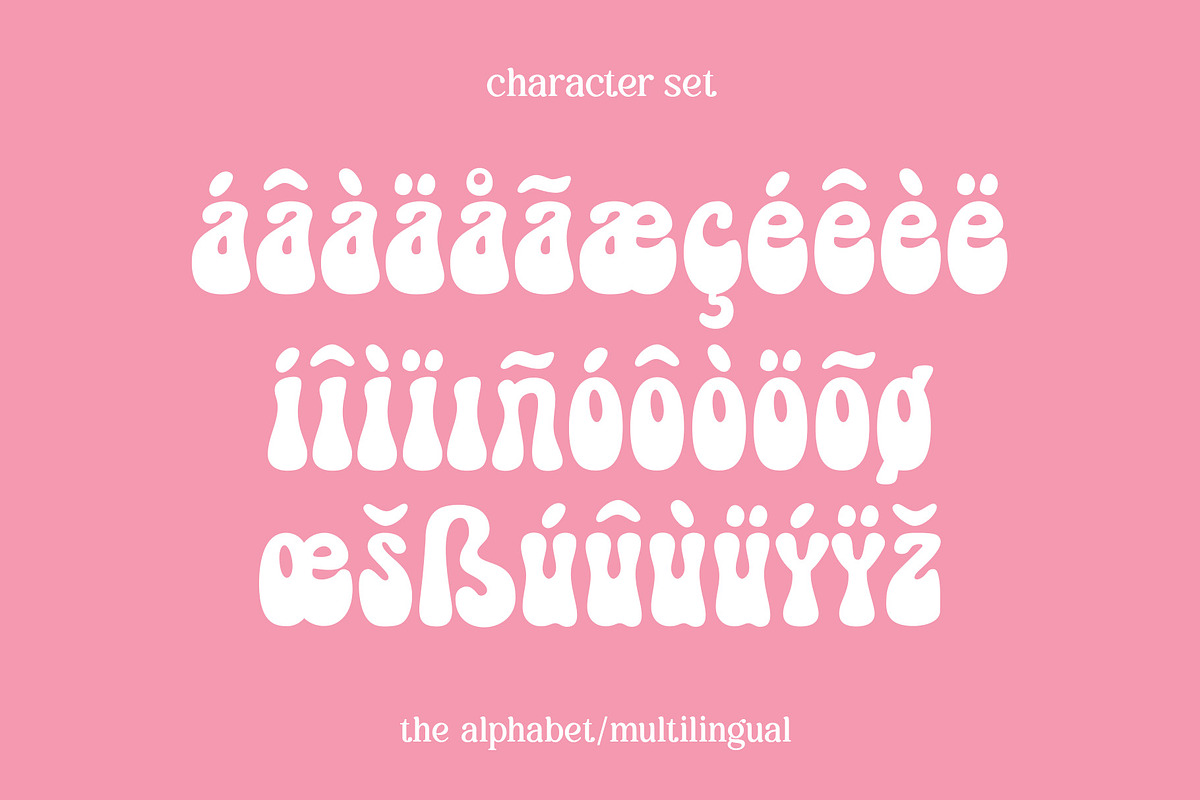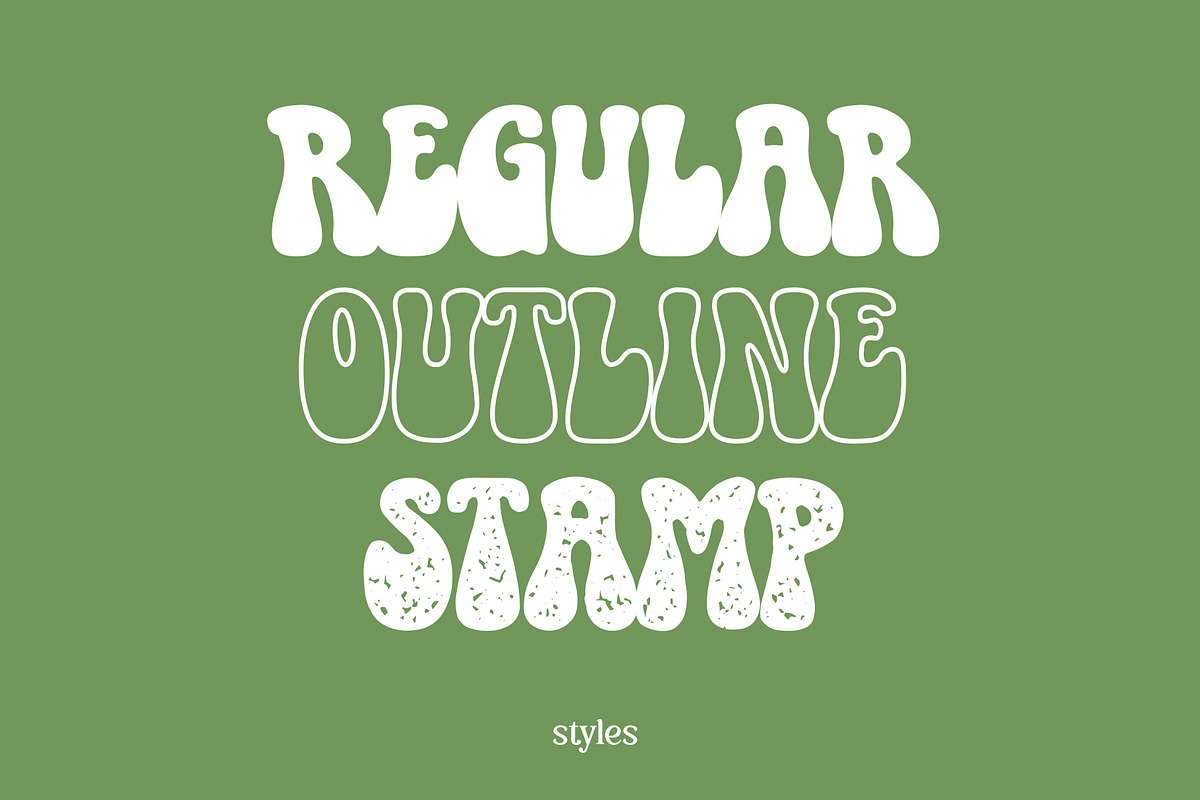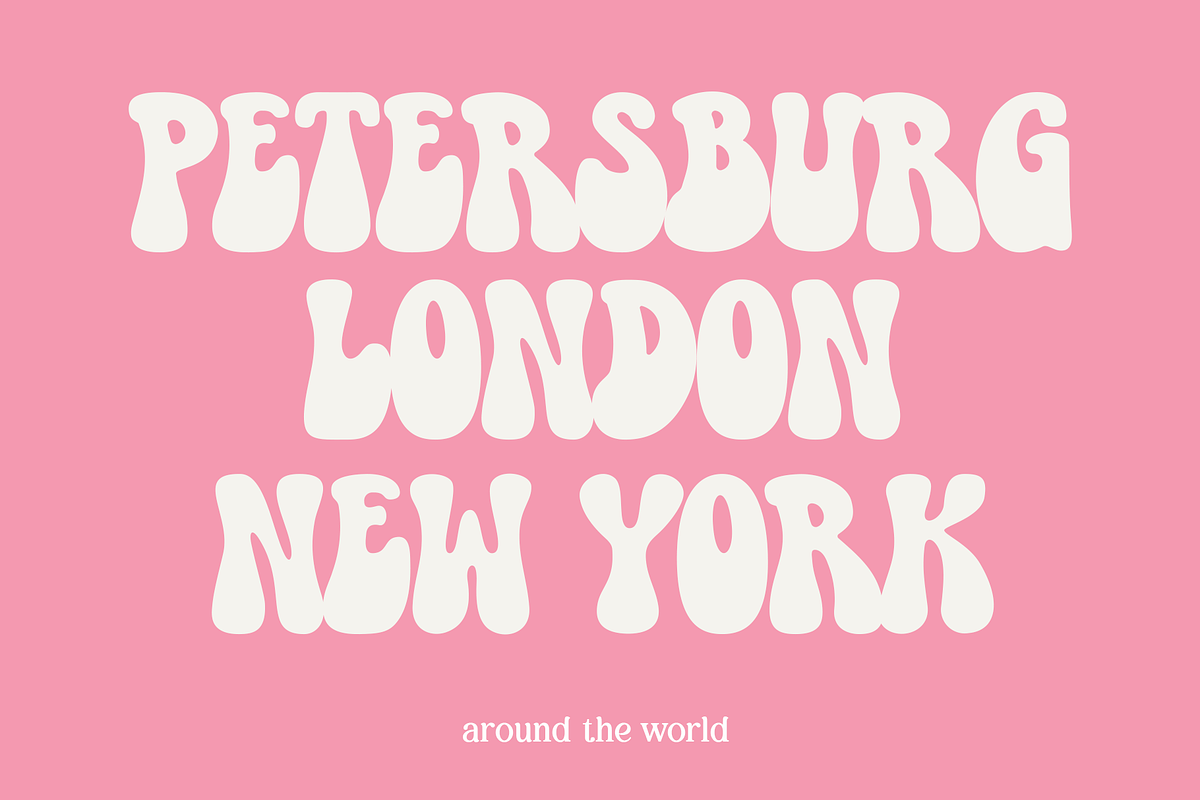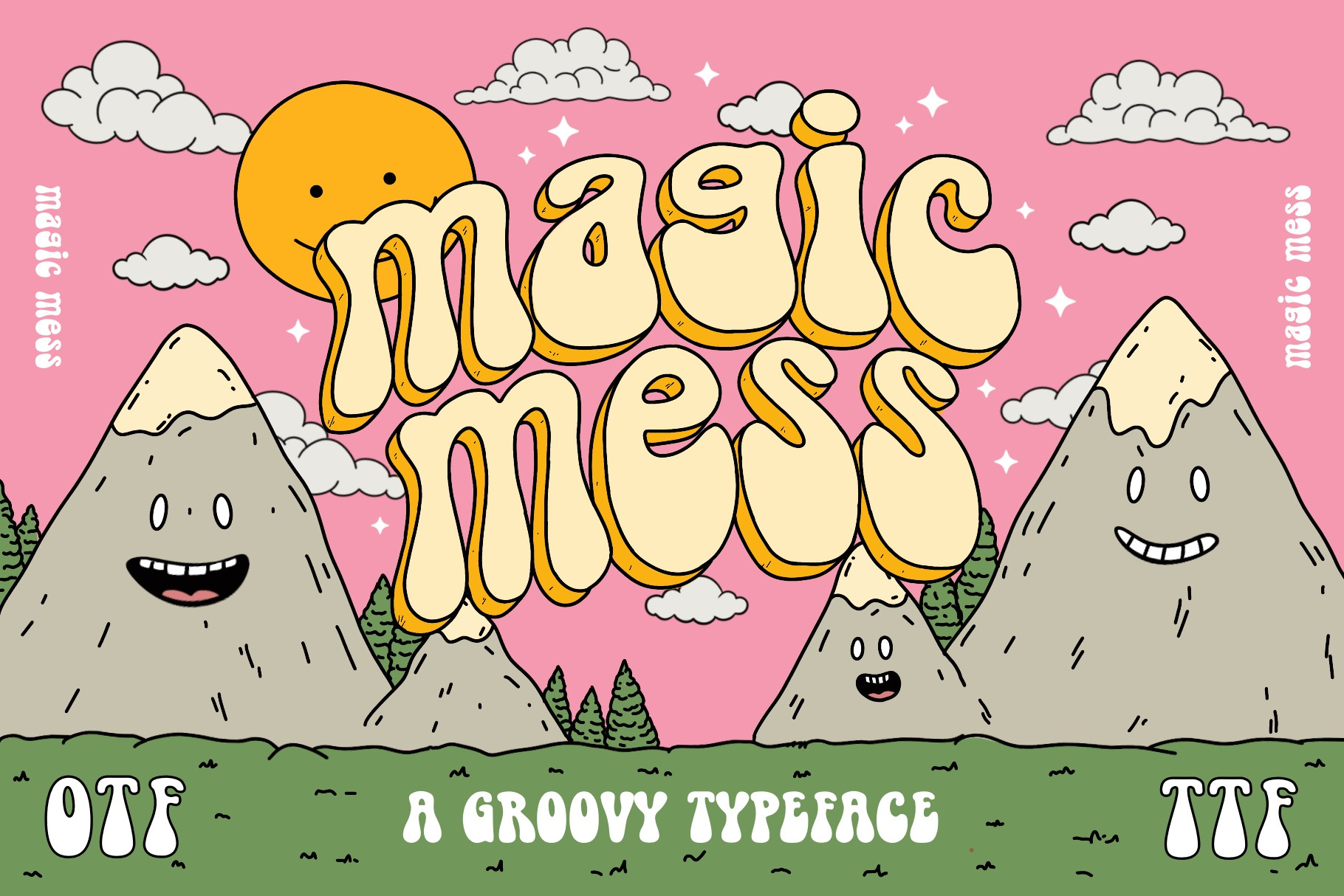
Magic Mess Font - Groovy Font
"Magic Mess" is a captivating groovy typeface family that seamlessly blends retro charm with contemporary flair. This typeface available in SVG format, compatible with advanced tools such as Cricut and Glowforge, and for use in Procreate. "Magic Mess" is ideal for eye-catching branding, poster designs, and any project demanding a unique, dynamic typographic style that stands out.